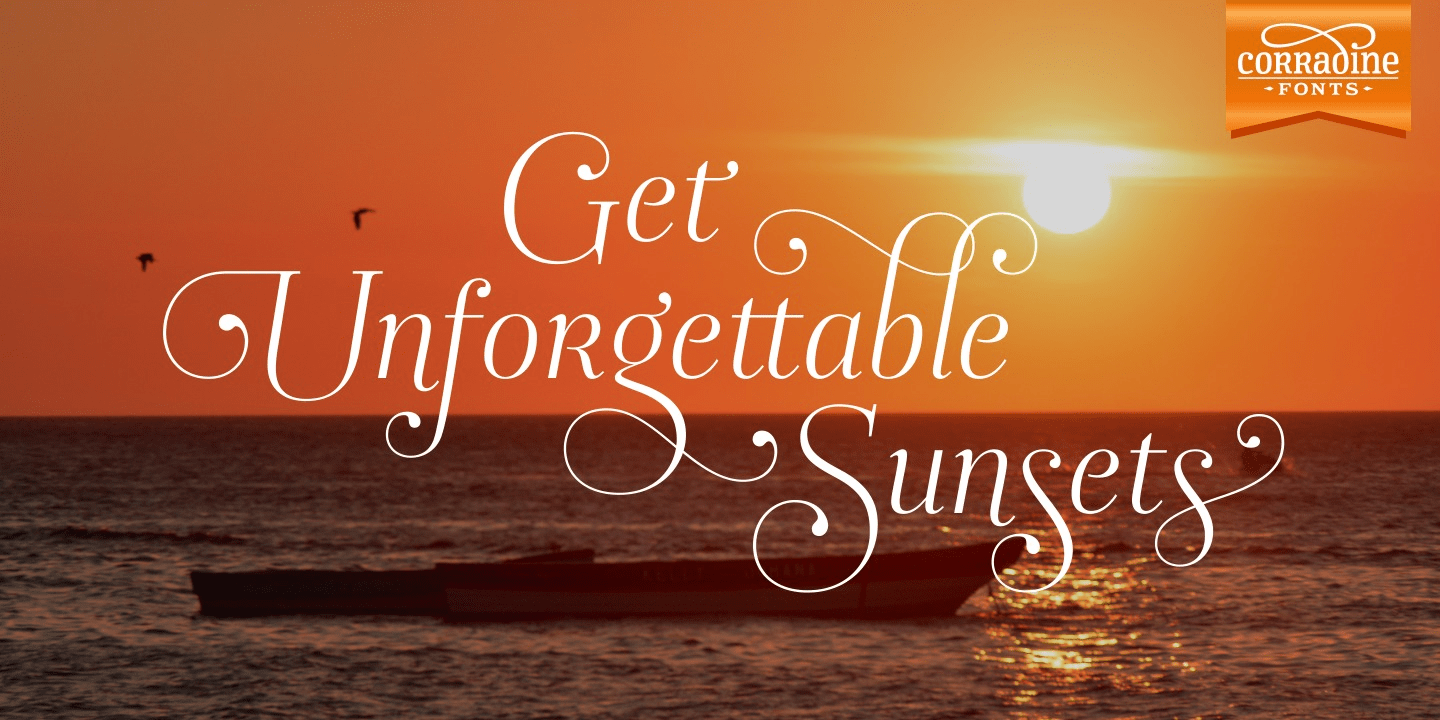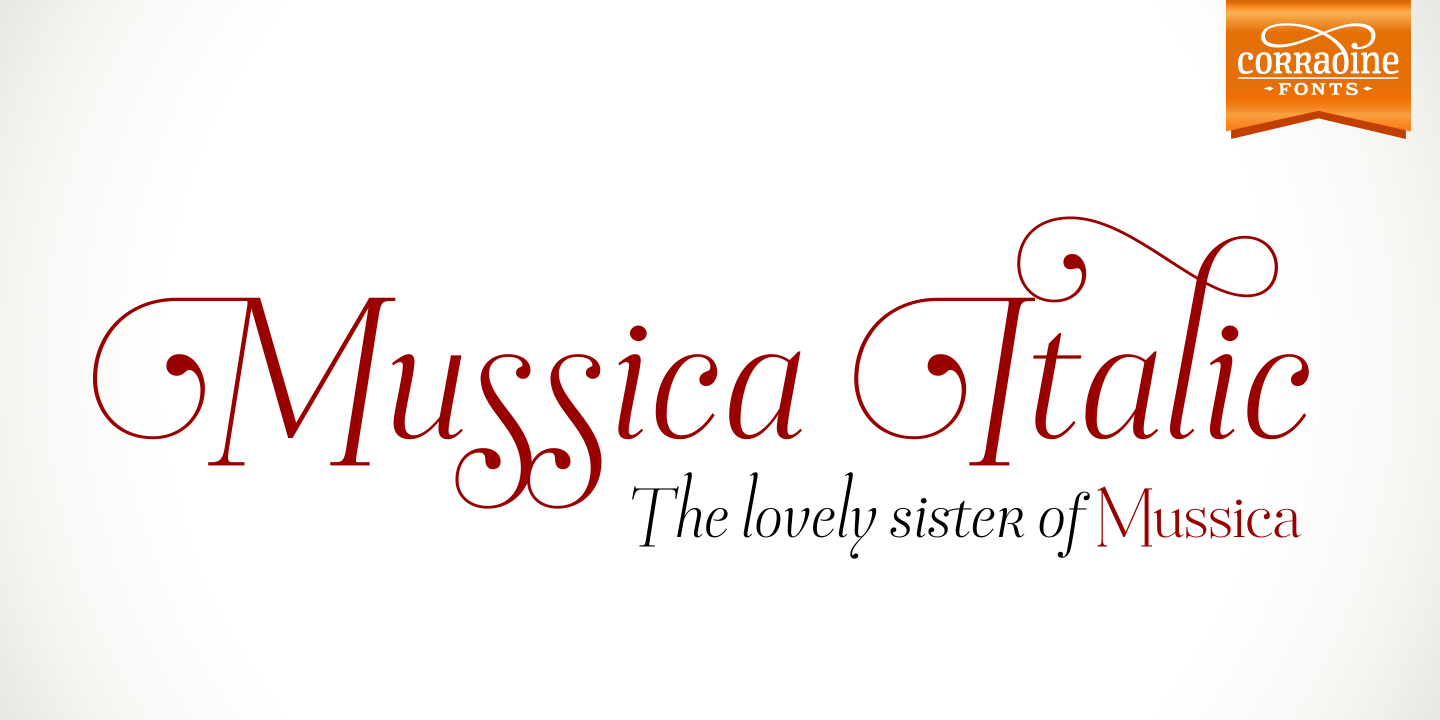
Mussica Italic
About Mussica Italic
In 2009, Corradine Fonts released one of its most successful projects: Mussica, an experimental and hybrid typeface that explore the exaggeration of ascenders and descenders in a high contrast style. Now, around eight years later, we are proud to introduce…